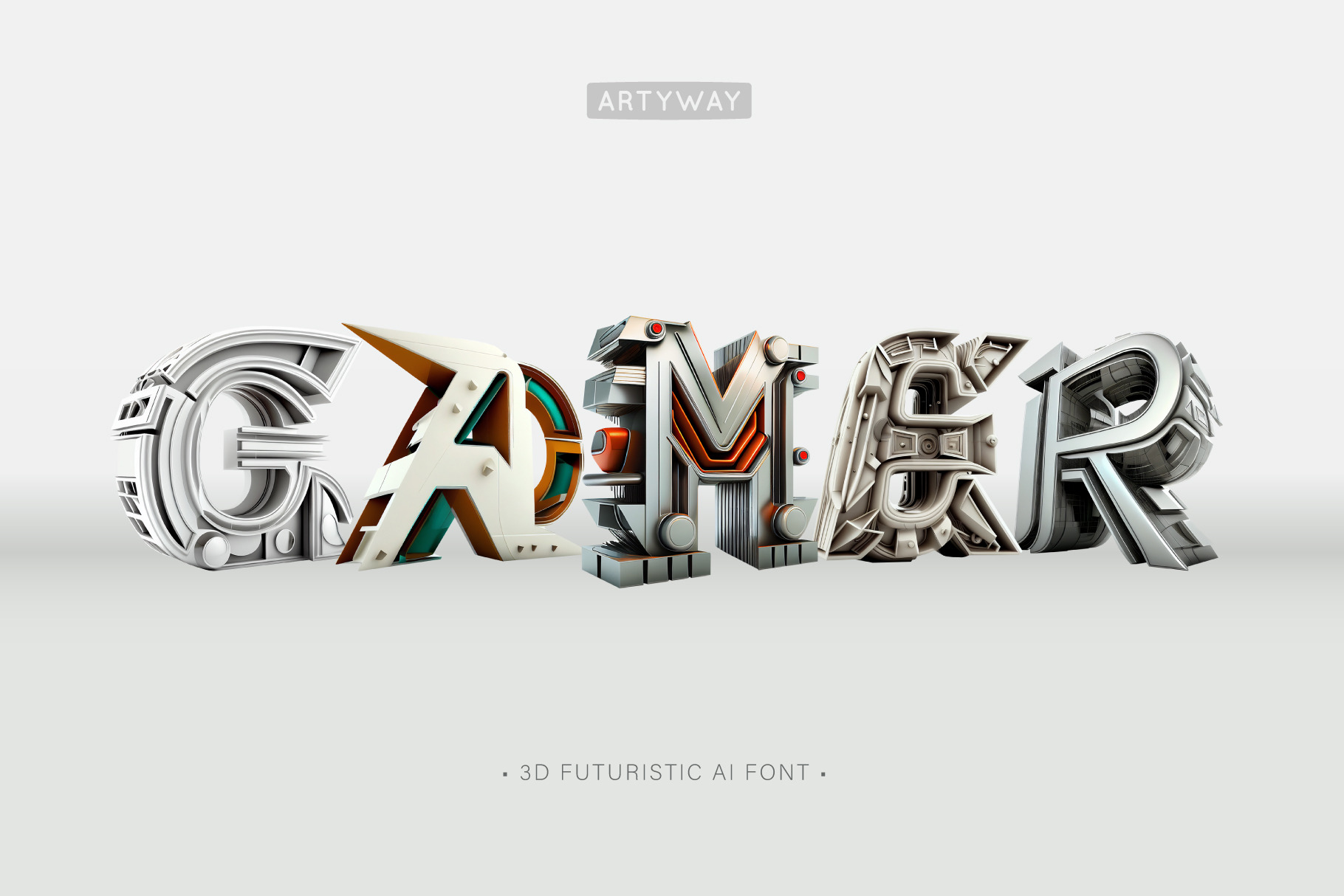
The 3D futuristic font has a modern and technologically advanced appearance, often featuring sharp angles and 3D technological shapes.
The extruded letters appear to be floating in space, giving them a three-dimensional look. Some examples include cyber techno effects, mechanical design, and metallic finishes.
This style of font is may be used in science fiction, technology-related projects, or designs that aim to convey a sense of innovation and progress.